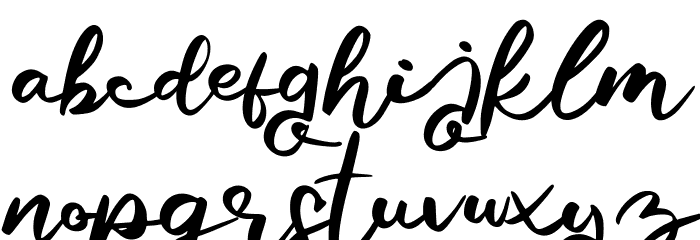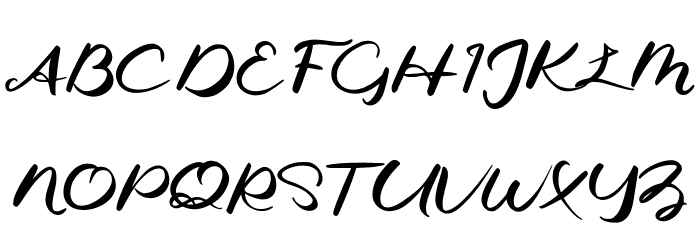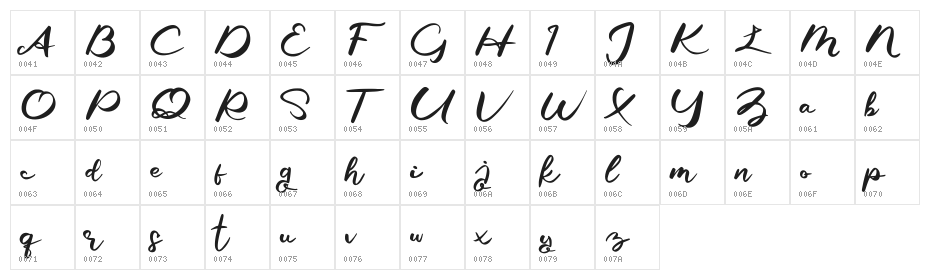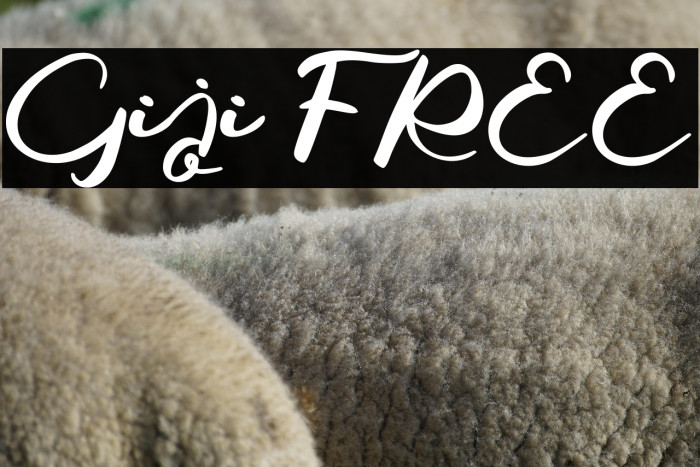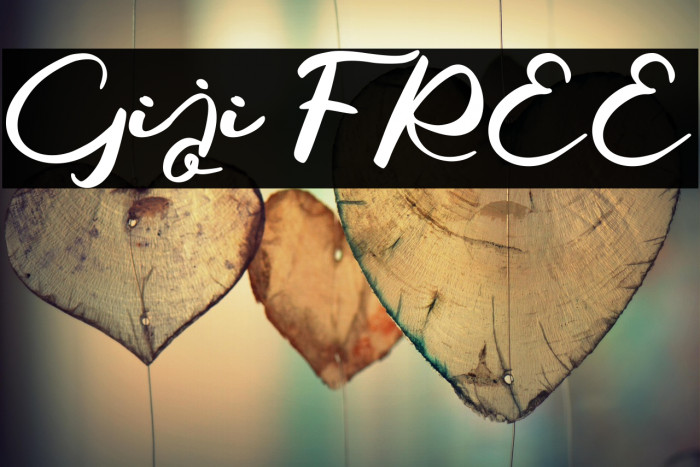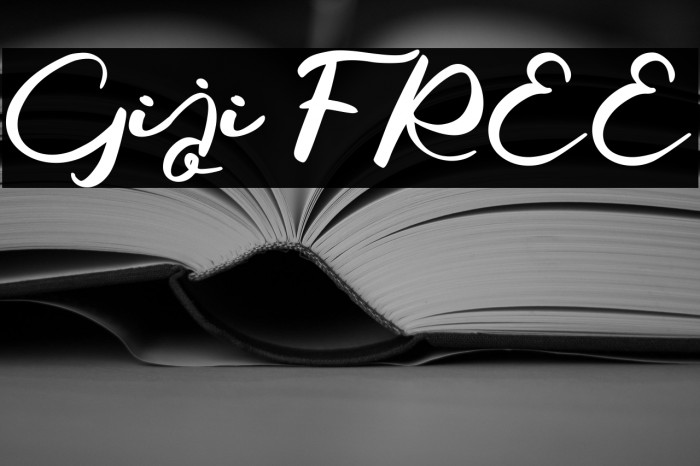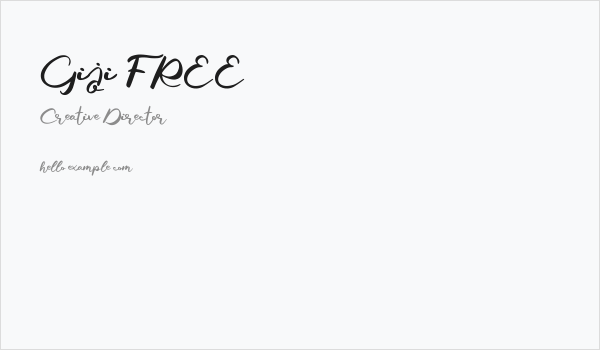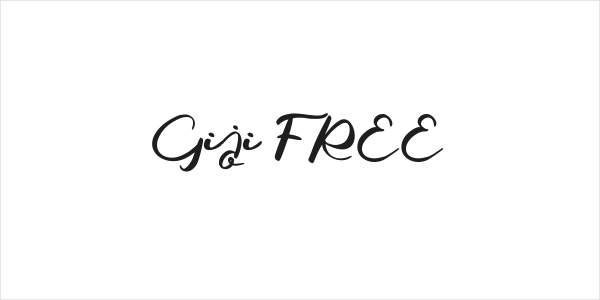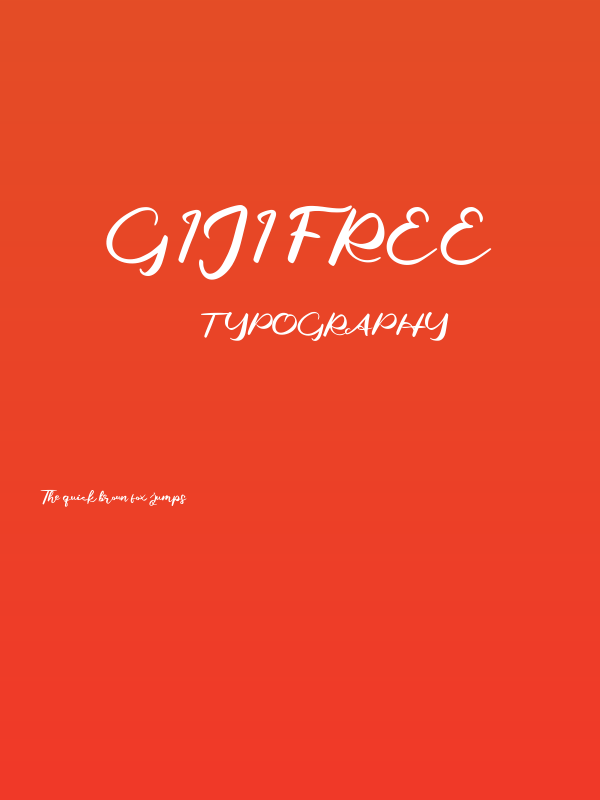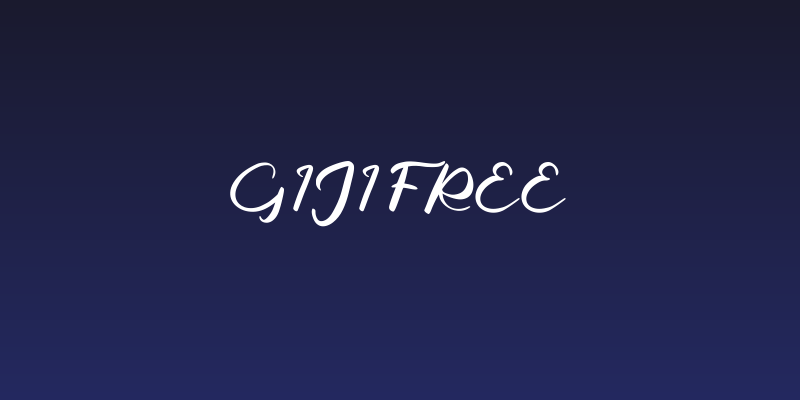
Giji FREE Font
This font features a dynamic and expressive script style, characterized by its fluid and cursive letterforms. The uppercase letters exhibit a graceful elegance with smooth curves and varying stroke widths, while the lowercase letters maintain a consistent flow, enhancing readability. The font's overall appearance is lively and artistic, making it suitable for creative projects. Its unique style is accentuated by the occasional use of loops and swashes, adding a touch of sophistication. The font's design is versatile, allowing it to be used in both formal and informal contexts, providing a sense of personality and flair.
A dynamic and expressive script font with fluid, cursive letterforms.
- Proposed Projects: Ideal for wedding invitations, greeting cards, branding, and artistic projects.
- Use Case: Logos, Invitations, Artistic projects